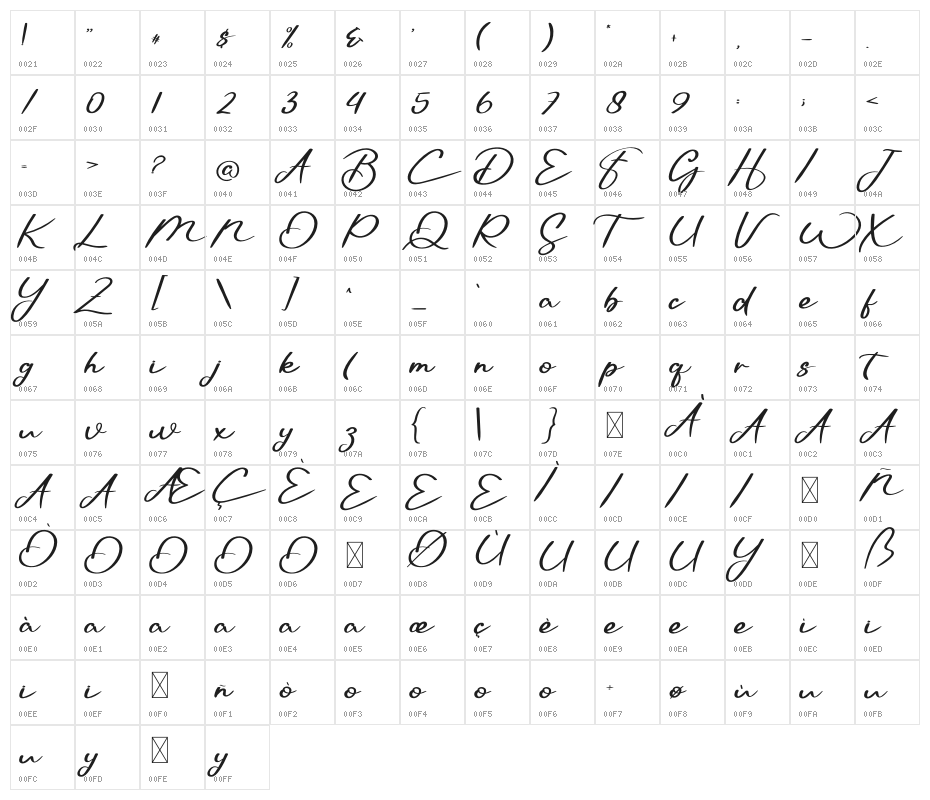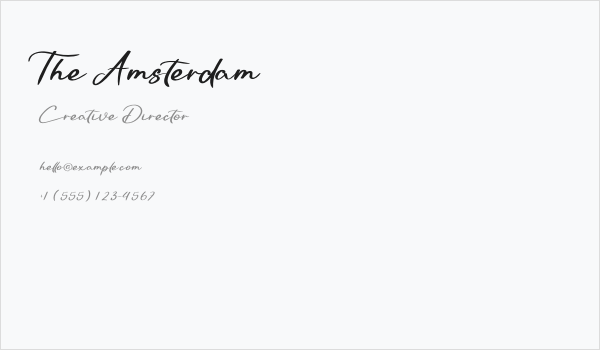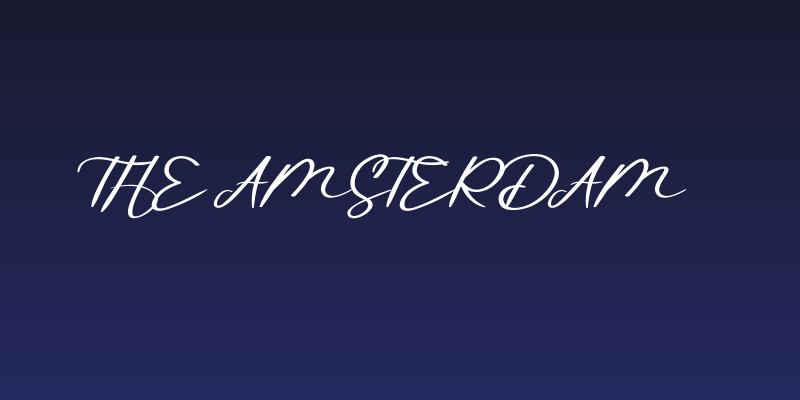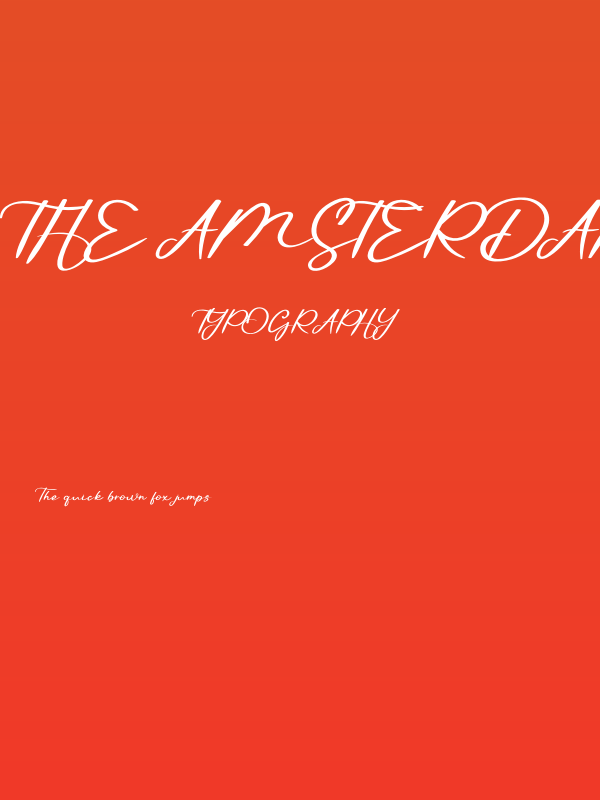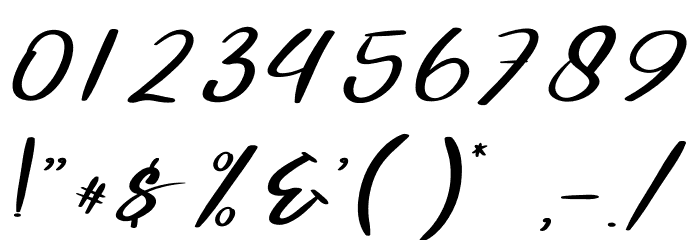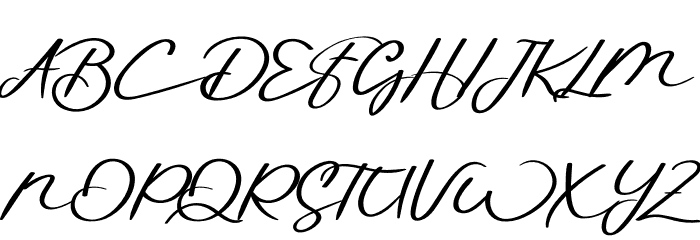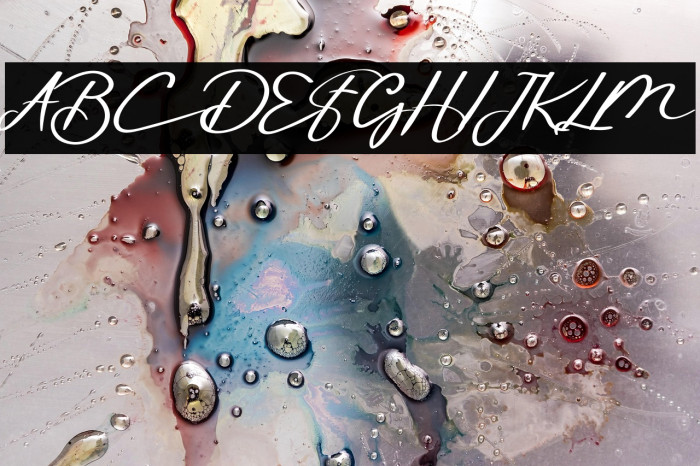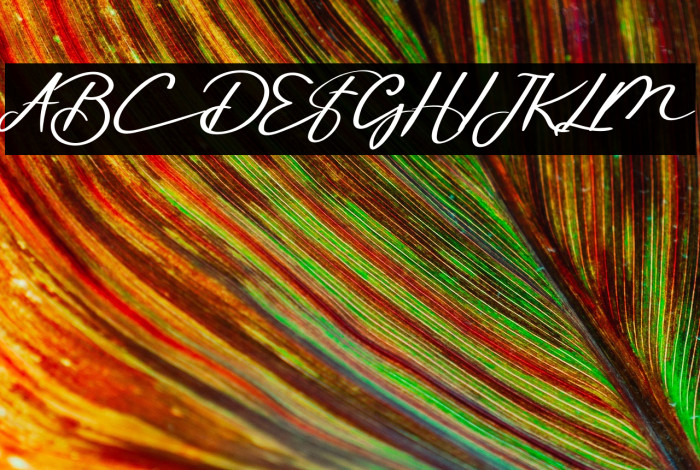
The Amsterdam Font
The Amsterdam Description
This font features an elegant and flowing script style, characterized by its smooth and connected strokes. The uppercase letters are slightly larger and more ornate, while the lowercase letters maintain a consistent flow, enhancing readability. The numerals and special characters are designed to complement the overall script style, maintaining the same fluidity and elegance. The font exudes a sense of sophistication and charm, making it suitable for projects that require a personal touch.
| Proposed Projects | Ideal for wedding invitations, greeting cards, branding, and logo design where a personal and sophisticated touch is desired. |